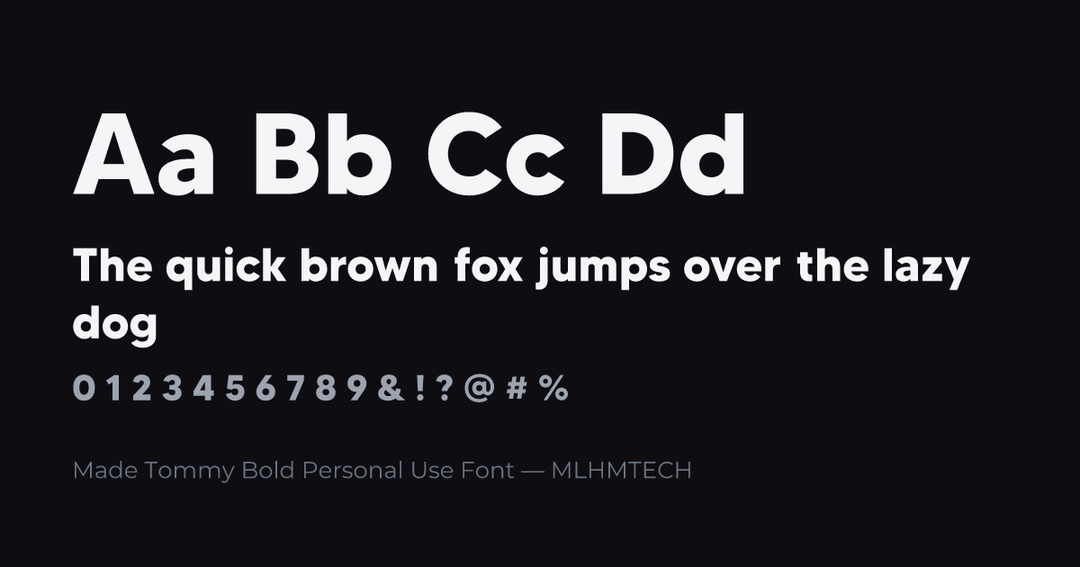
Made Tommy Bold Personal Use Font
Made Tommy Bold is a modern, bold sans-serif font perfect for eye-catching headlines, logos, and branding projects. This OTF file is free for personal use.
Made Tommy Bold is a striking, modern sans-serif font that commands attention. Its thick, clean strokes make it ideal for headlines, posters, and branding materials that need a strong visual impact. The font is provided in OTF format, ensuring high quality and compatibility with most design software.